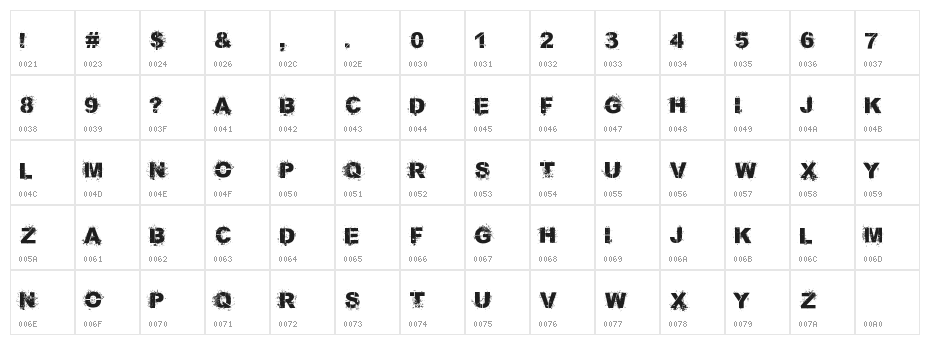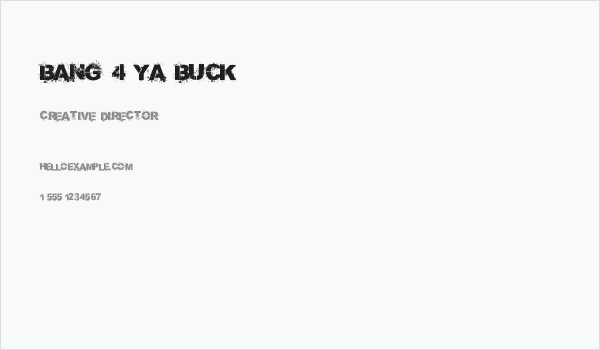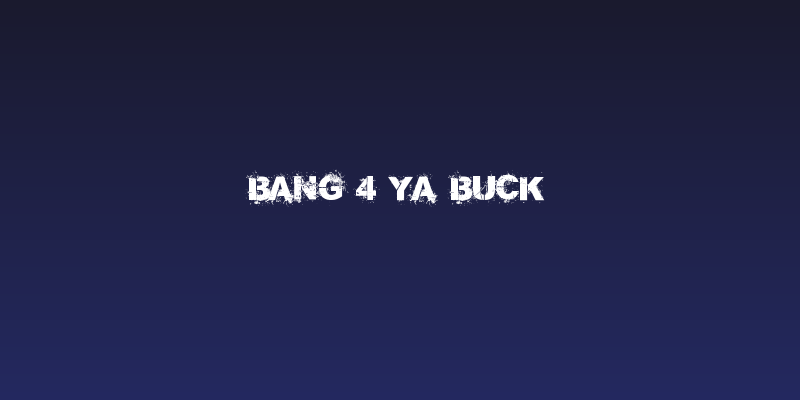
Bang 4 Ya Buck Font
Bang 4 Ya Buck Description
This font features a bold, distressed style with a grunge texture that gives it a rugged, worn appearance. The characters are uppercase and numerals, each with a unique pattern of distress marks that create a sense of movement and energy. The font's heavy weight and irregular edges make it stand out, ideal for designs that require a strong, impactful look. The spacing between characters is relatively tight, enhancing the compact and cohesive feel of the text. This font is perfect for projects that aim to convey a sense of rebellion, edginess, or urban style.
| Overall Style | Grunge, Urban |
| Proposed Projects | Ideal for music album covers, event posters, streetwear branding, and urban-themed designs. |